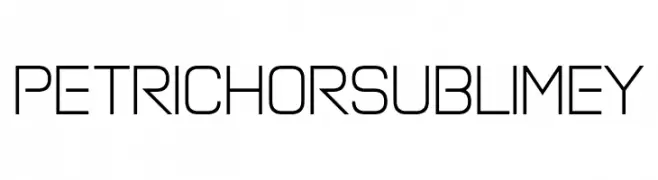
A playful, bold handwritten font with smooth curves and a lively appearance.
A fluid and elegant script font with connected letterforms and a handwritten style.
A modern, geometric font with clean lines and uniform structure.
A dynamic, brush-style font with a hand-painted appearance.
A bold, 3D font with sharp, angular edges and a shadow effect.
A bold, three-dimensional font with a futuristic and dynamic style.
A bold, three-dimensional font with a futuristic and dynamic design.
A bold, 3D geometric font with a futuristic style and strong visual impact.
A bold, playful font with rounded edges and a bubbly appearance.
A dynamic, cursive script font with fluid, interconnected strokes.